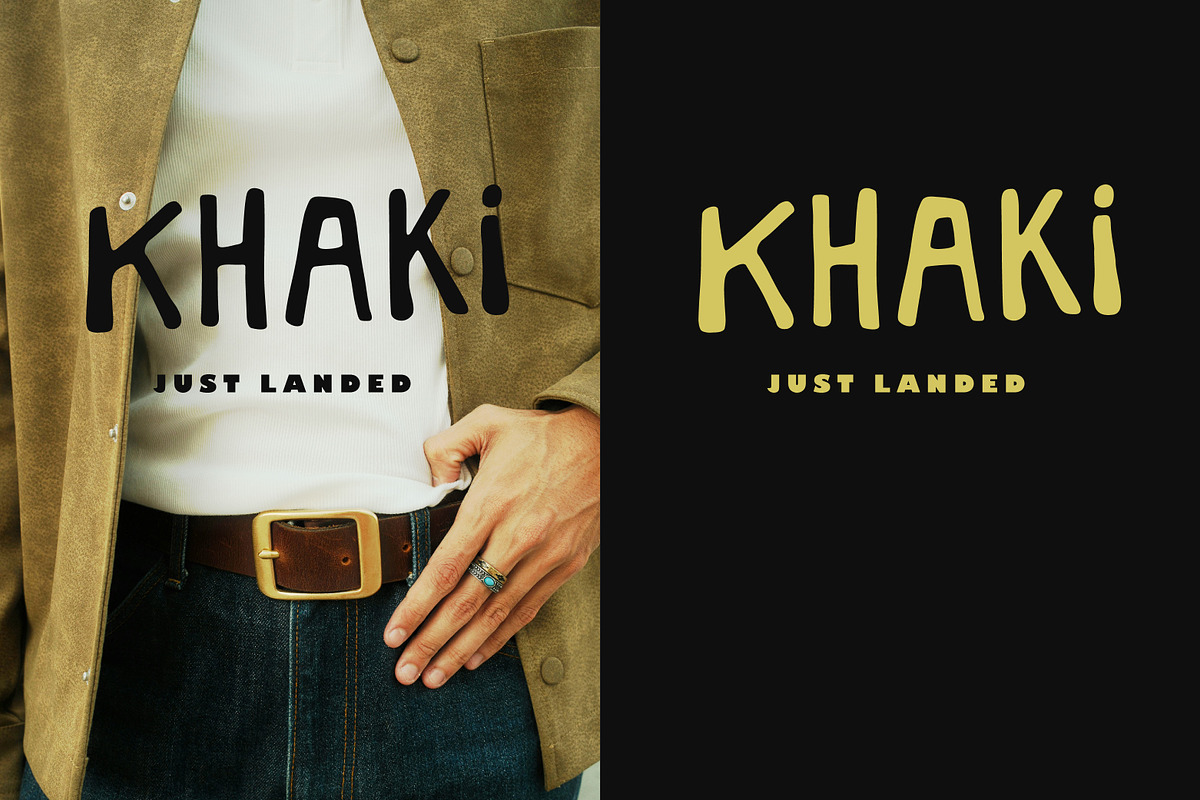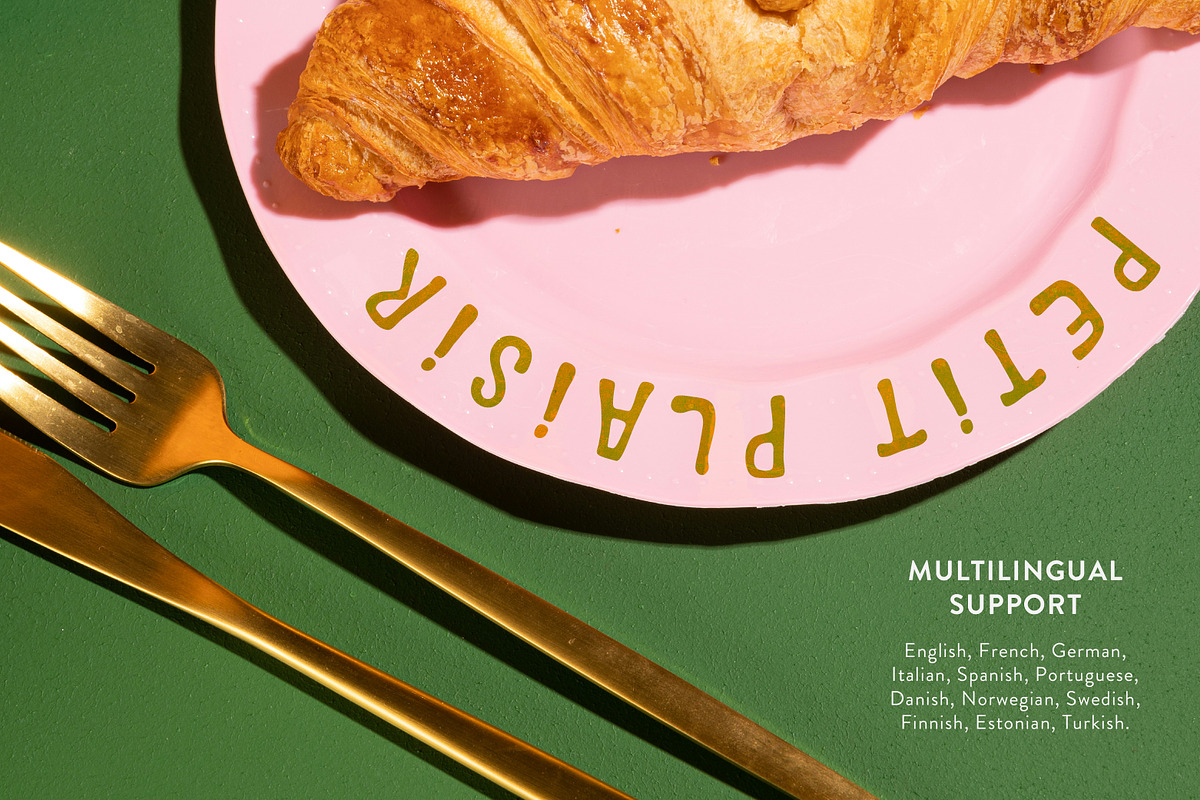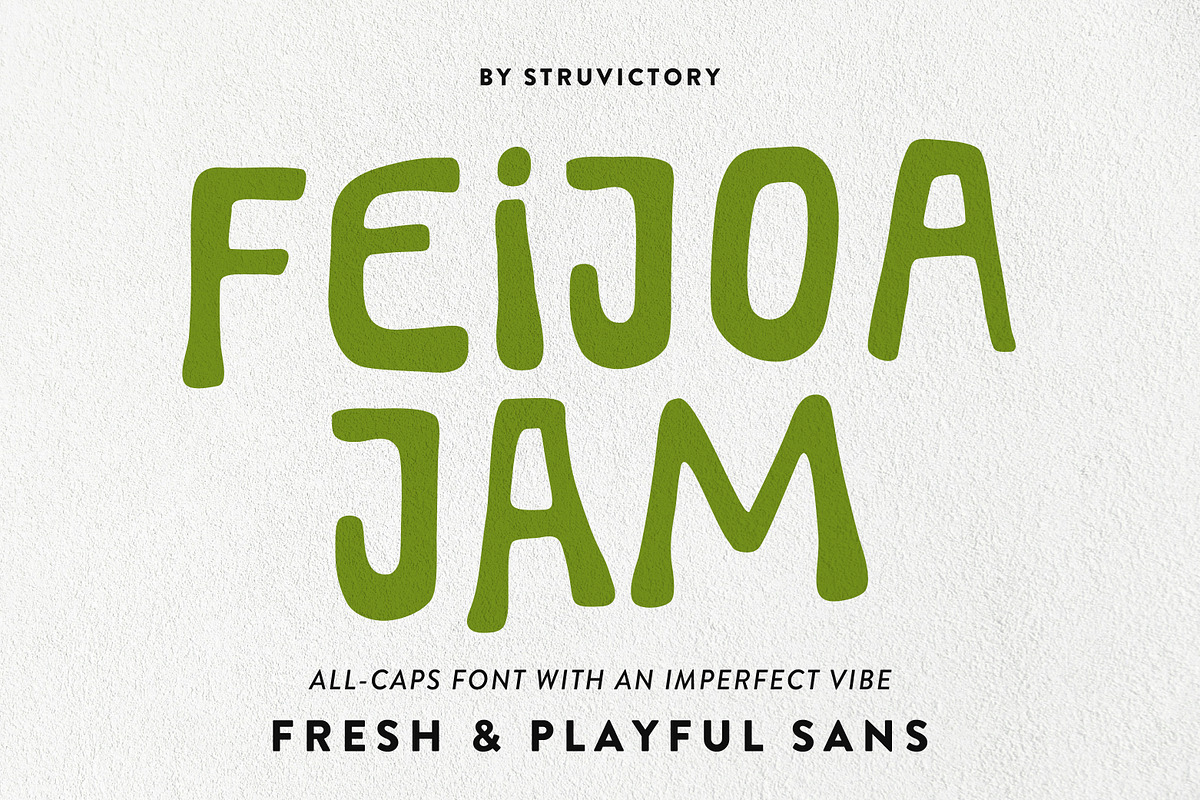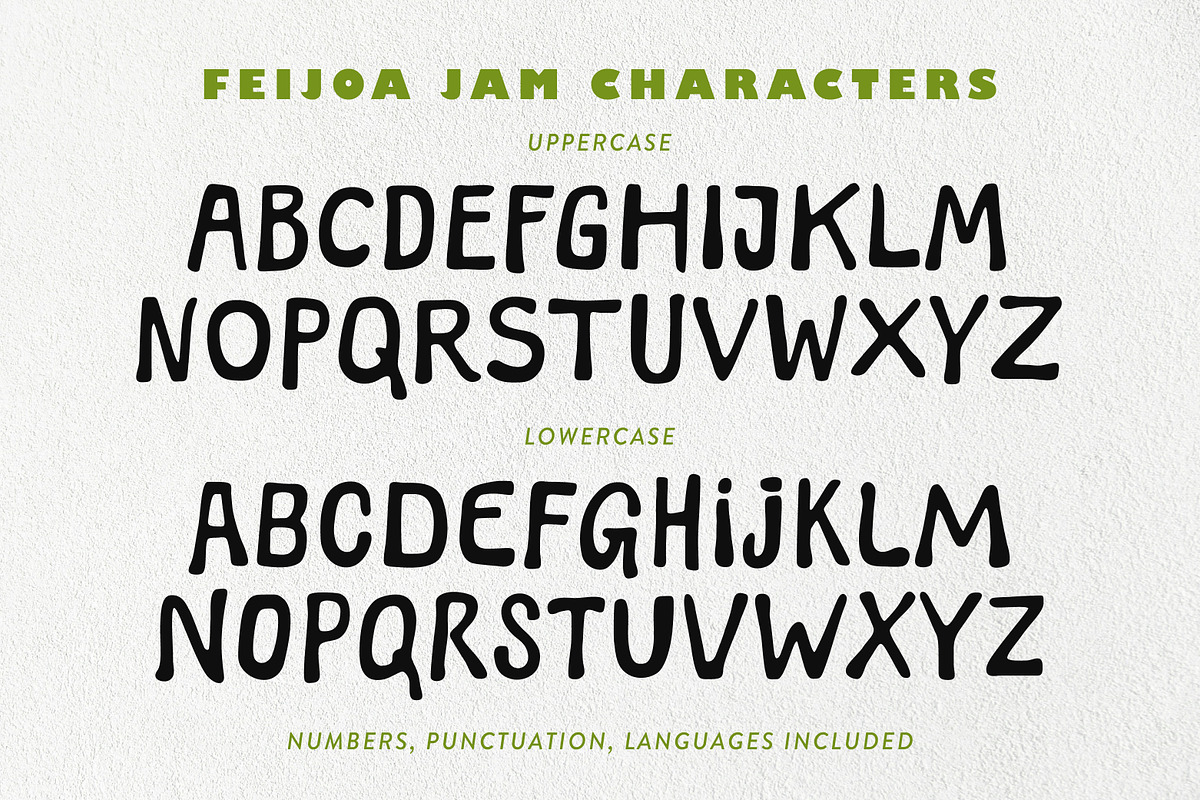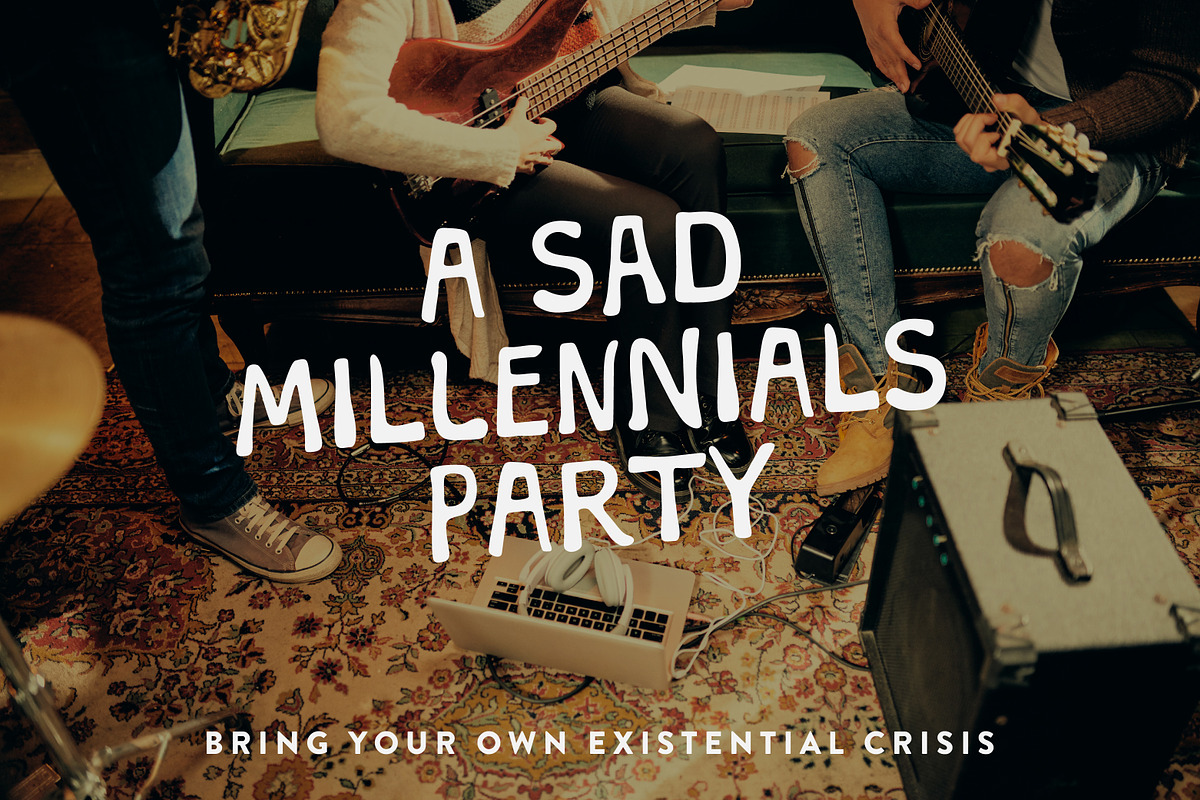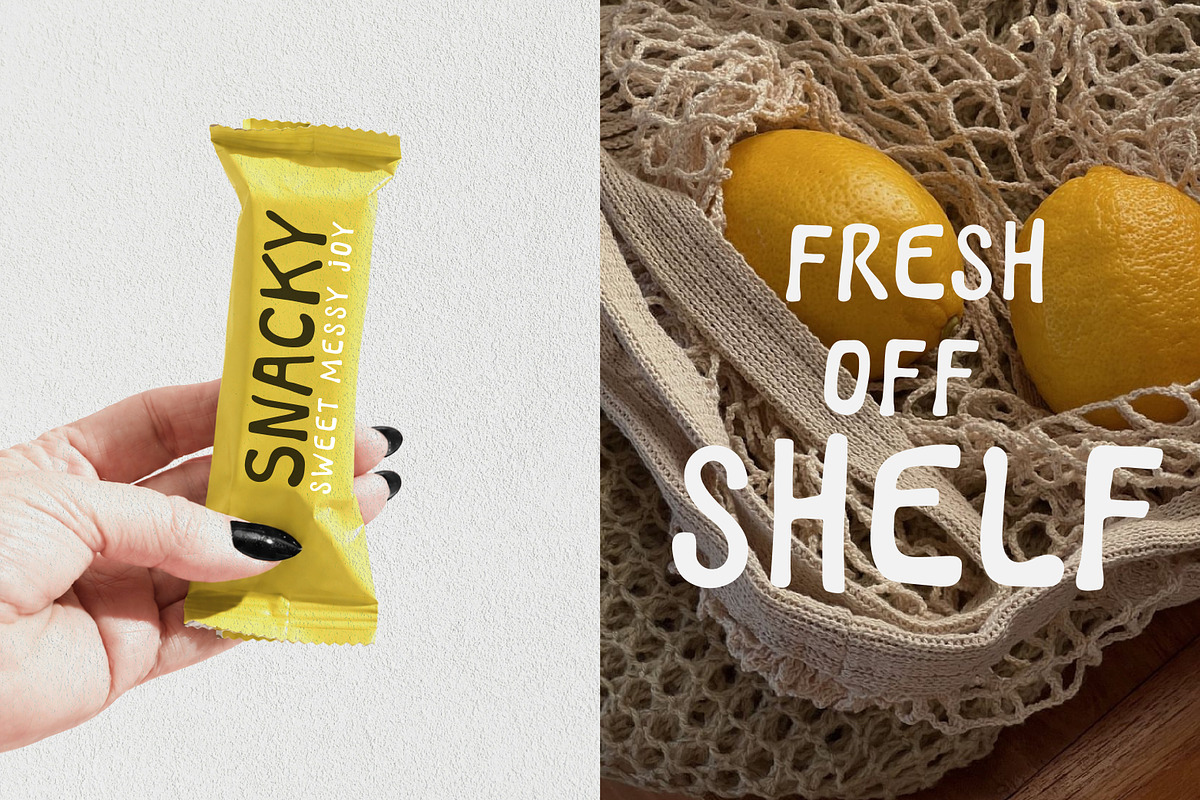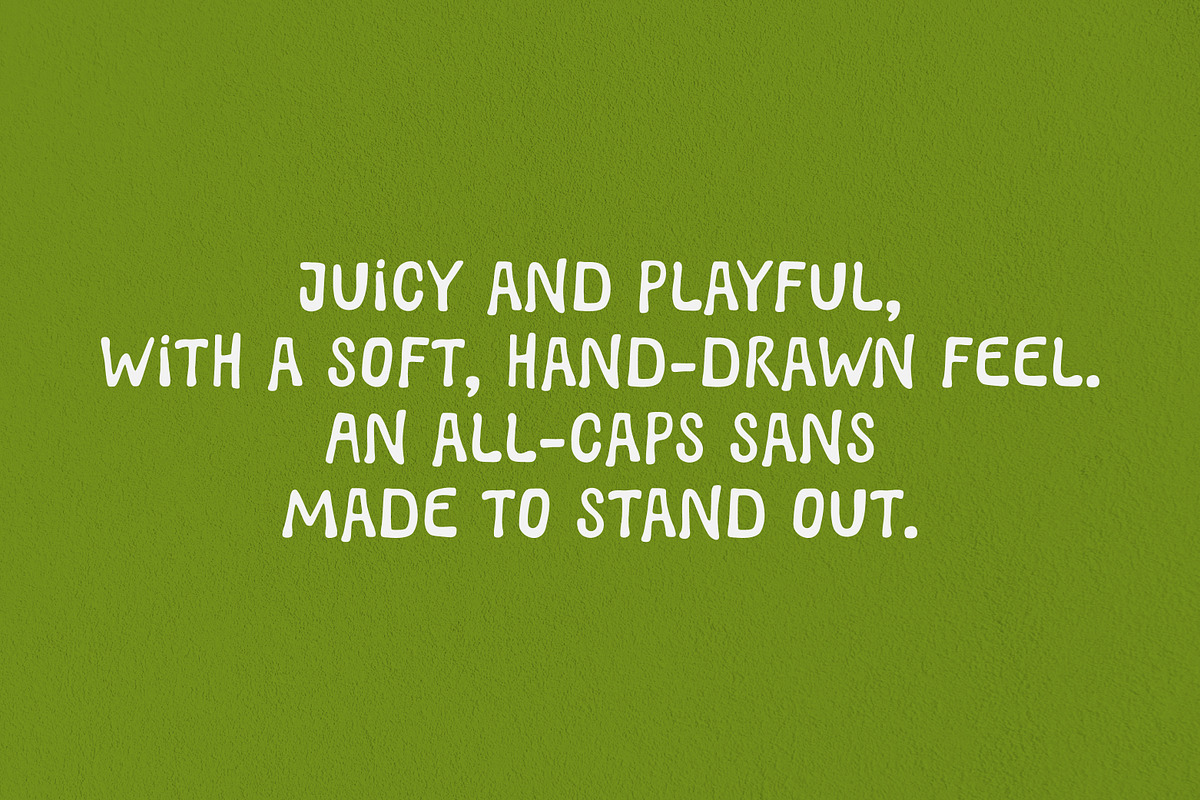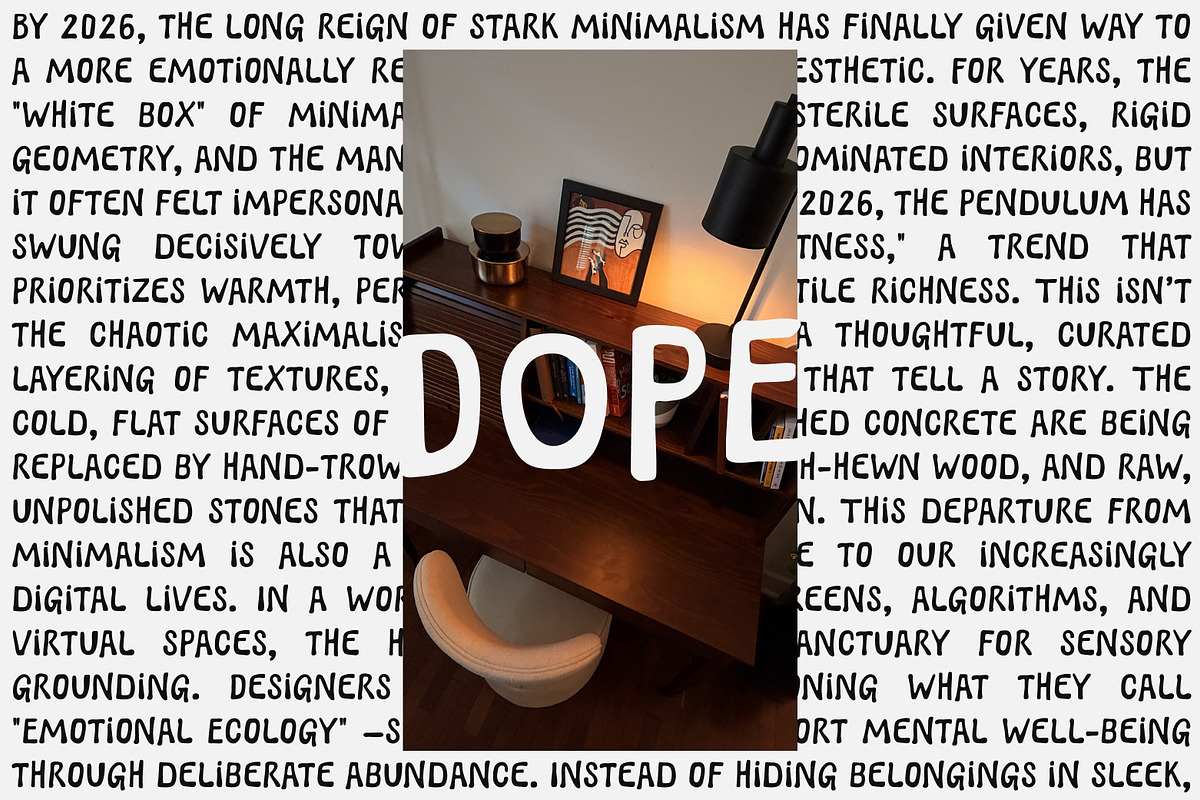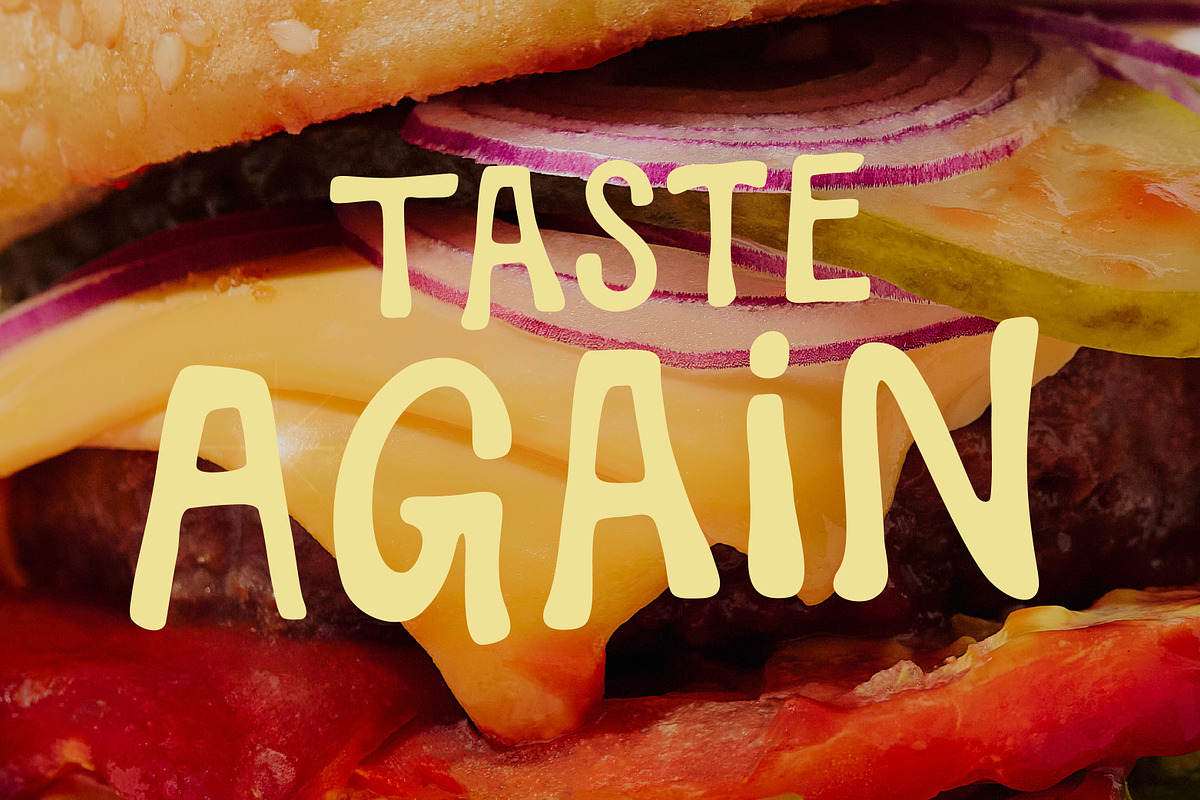
Feijoa Jam Handwritten Playful Sans
Feijoa Jam is a juicy, playful all-caps sans with a soft hand-drawn feel and a relaxed, friendly rhythm. Its rounded shapes and slightly irregular lines give it a lively, organic character that feels both modern and approachable. Designed to bring warmth and personality into your layouts, it works perfectly for food packaging, branding, social media, posters, and lifestyle projects that need a fresh, catchy voice.
Feijoa Jam supports the most popular latin-based languages, you can check the symbol you need by typing a couple of words in the font preview box.